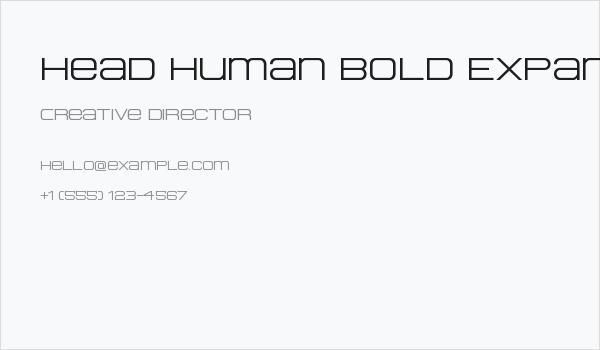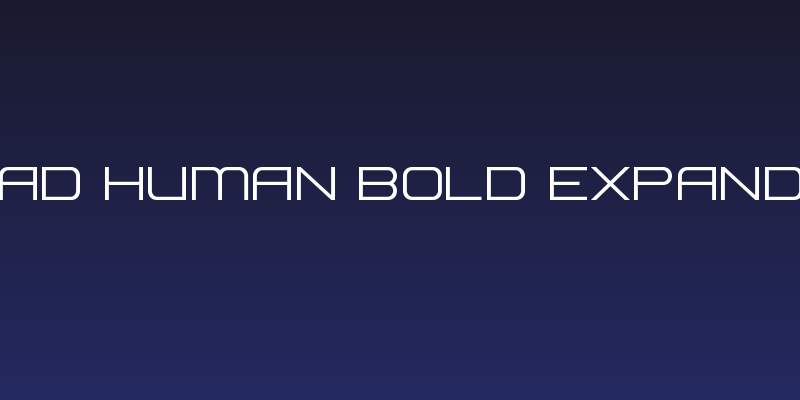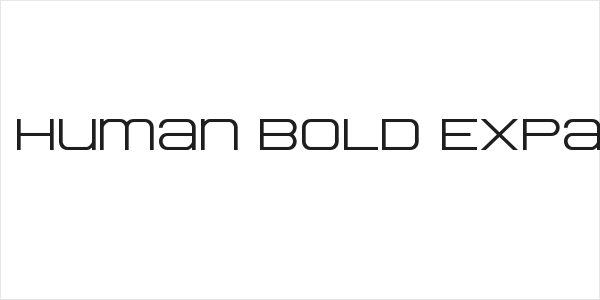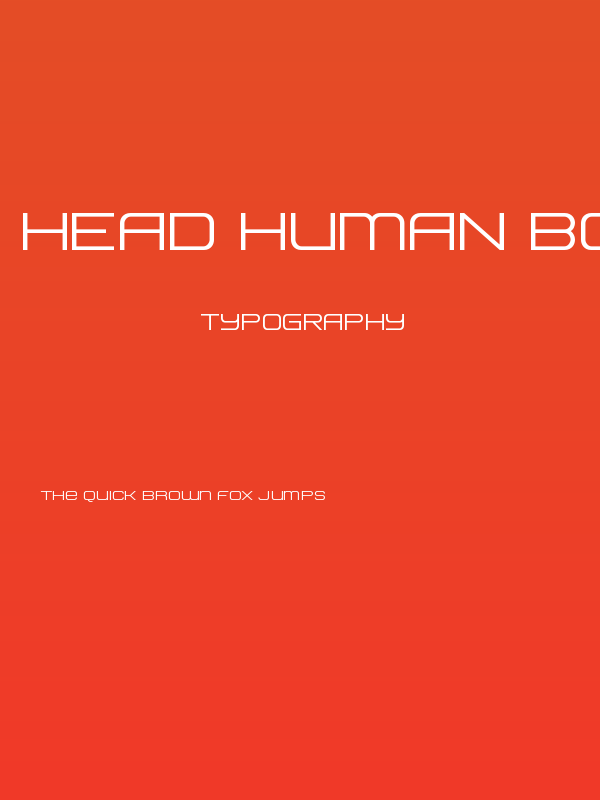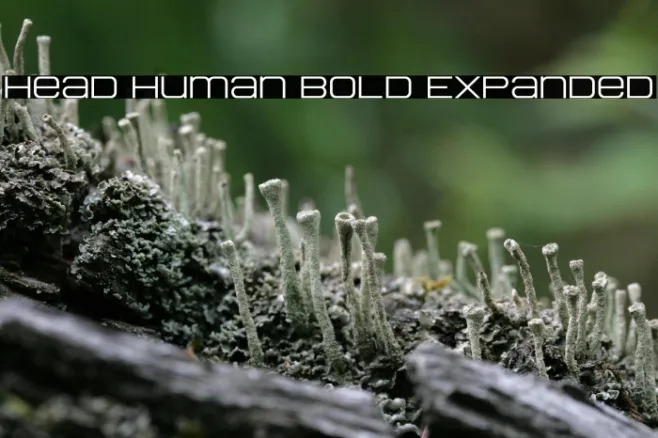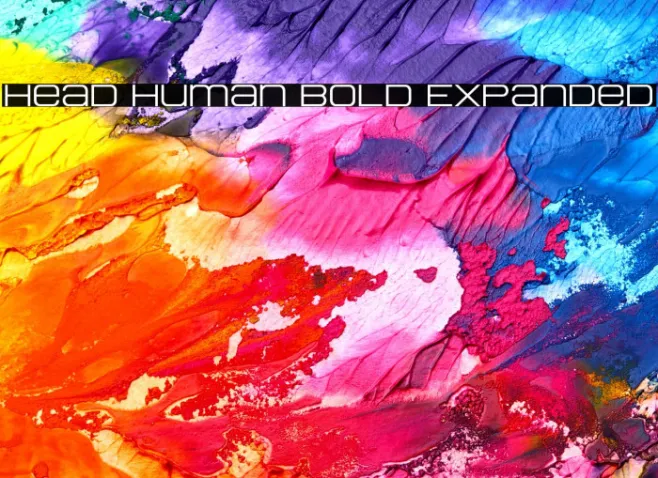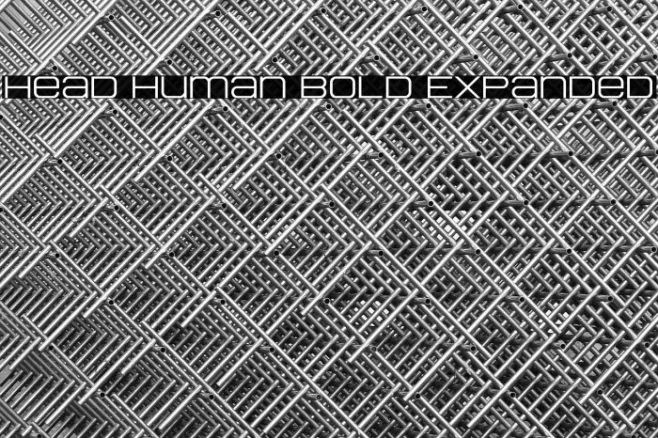
Head Human Bold Expanded Font
Head Human Bold Expanded Description
This font features a modern, geometric style with clean lines and a futuristic feel. The characters are constructed with a uniform stroke width, giving it a bold and expanded appearance. The uppercase and lowercase letters maintain a consistent height, contributing to its sleek and streamlined look. The numerals and special characters are designed to match the overall aesthetic, with a focus on clarity and readability. The font's expanded width and uniform spacing between characters make it ideal for creating impactful headlines and titles.
| Proposed Projects | Ideal for technology branding, futuristic designs, and modern advertising campaigns. |